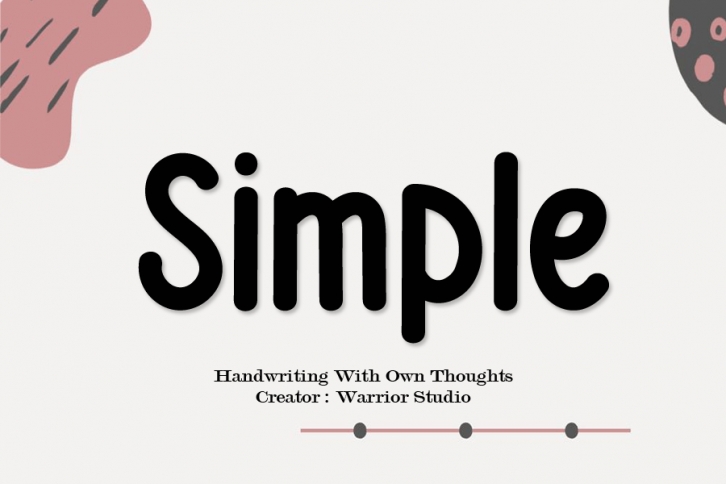
Simple is a charming and casual handwritten font. Whether you’re using it for crafts, digital design, presentations, or making greeting cards, this font has the potential to become your favorite go-to font, no matter the occasion!